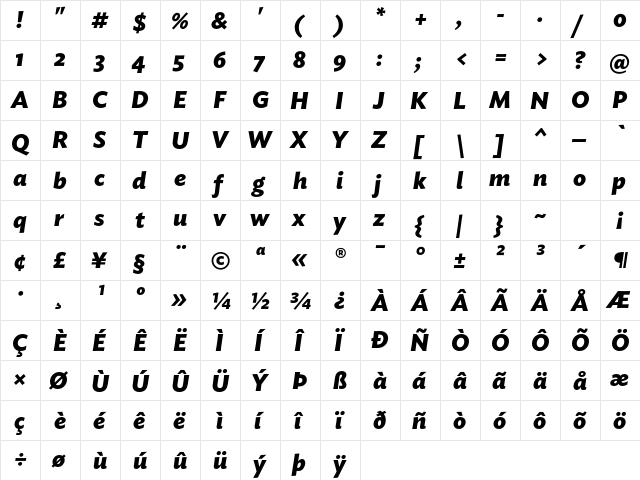
Ideal Sans Bold Italic
| Foundry | Hoefler & Frere-Jones |
| Designer | Hoefler & Frere-Jones |
Design Context for Ideal Sans Typeface
Ideal Sans offers clean, dependable letterforms without strong stylistic allegiance, making it a practical choice for designers who need flexibility. The slanted form adds forward momentum and visual energy. The heavy weight commands attention and anchors typographic hierarchies.
Pro Tip: Try Ideal Sans for annotation and caption copy alongside an upright companion — the contrast in angle creates a dynamic but ordered typographic system.